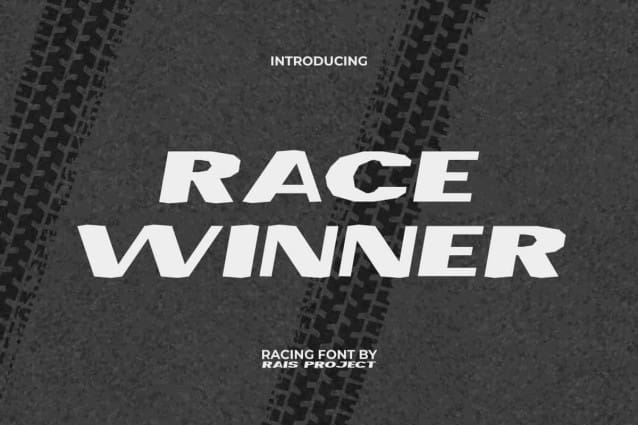
Race Winner Font
Race Winner Font is a hip stylish display racing font, created by RaisProject. This font has bold letter characters so it can make your design stand out and be read clearly. It will be good for any designs, such as advertisement, brand image, custom design, invitation, label, marketing material, poster, product packaging, quotes, signage, website page, and more!
Race Winner Font includes a full set of ALL CAPS for Uppercase and Lowercase Letters, Numerals, and large range of Punctuation. This modern font with a racing vibe will be suitable for various industries, such as automotive, barber shop, cafes, event or festival, fashion, game, photography, printing, publishing, sports, etc.